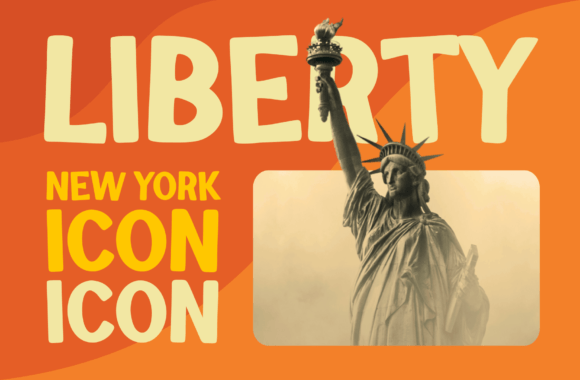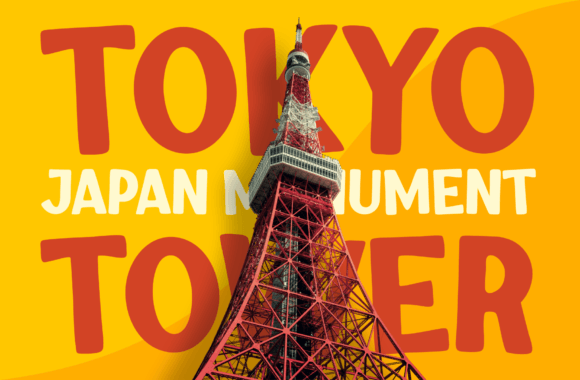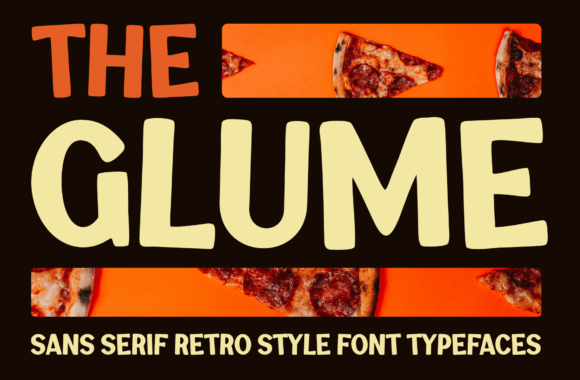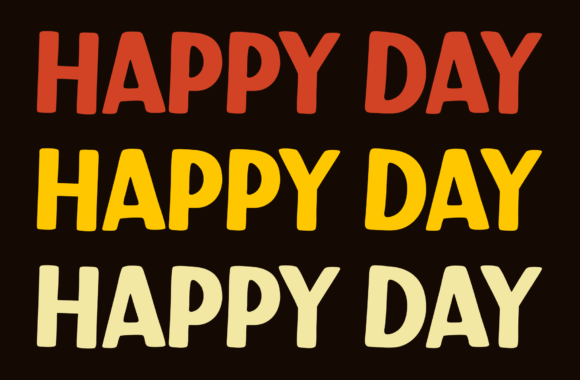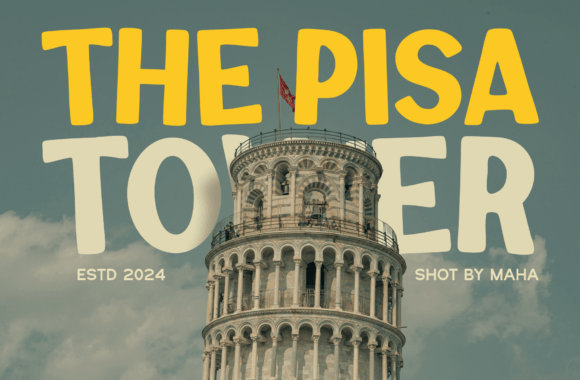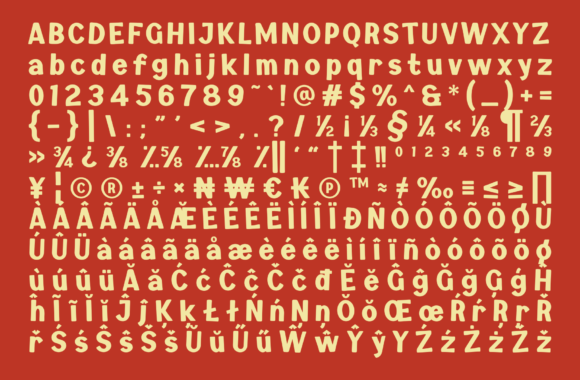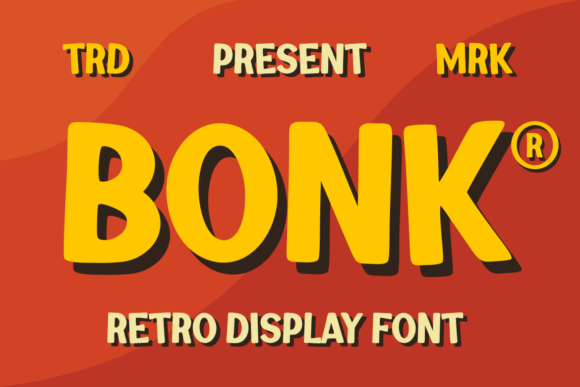
Introducing Bonk Font: The Ultimate Retro Display Font for Playful Designs
Are you tired of using the same old fonts in your designs? Look no further! We’re excited to introduce Bonk, a brand-new retro display font that’s sure to bring a burst of joy and cheerfulness to your projects. With its playful, handwritten style reminiscent of comics and cartoons, Bonk is the perfect choice for designers and crafters looking to add a touch of whimsy to their work.
What is Bonk Font?
Bonk font is a unique and eye-catching typeface that embodies the spirit of playfulness and fun. Its distinctive, hand-drawn aesthetic is characterized by bold lines, irregular shapes, and a dash of personality. This font is designed to evoke the nostalgia of childhood memories, making it an ideal choice for projects aimed at a younger audience or those looking for a fun and lighthearted feel.
Key Features of Bonk Font
- Handwritten style: Bonk font boasts a charming, handwritten look that’s perfect for adding a personal touch to your designs.
- Retro vibe: With its bold lines and playful aesthetic, Bonk font is sure to transport your audience back to a bygone era of fun and adventure.
- Comic and cartoon-inspired: This font’s inspiration from comics and cartoons makes it an excellent choice for projects that require a dash of humor and lightheartedness.
- Perfect for posters and promotional materials: Bonk font is ideal for creating eye-catching posters, invitation cards, and promotional materials that demand attention.
Use Cases for Bonk Font
Bonk font is incredibly versatile and can be used in a wide range of design projects, including:
- Poster designs: Create bold and eye-catching posters that showcase your brand’s personality.
- Invitation cards: Add a touch of whimsy to your invitation cards and make them stand out.
- Comics and cartoons: Bring your comic strips and cartoons to life with Bonk font’s playful and energetic style.
- Promotional materials: Use Bonk font to create promotional materials that appeal to a younger audience or those looking for a fun and lighthearted feel.
Why Choose Bonk Font?
With so many fonts available, why choose Bonk? Here are just a few reasons why Bonk font stands out from the crowd:
- Unique and eye-catching: Bonk font’s distinctive style is sure to grab attention and leave a lasting impression.
- Easy to read: Despite its playful aesthetic, Bonk font remains clear and easy to read, making it perfect for use in a variety of design projects.
- Highly versatile: Bonk font can be used in a wide range of design projects, from posters and promotional materials to comics and cartoons.
Bonk font is the perfect addition to any designer’s toolkit. With its playful, handwritten style and retro vibe, it’s sure to bring a burst of joy and cheerfulness to your projects. So why wait? Download Bonk font today and start creating designs that are sure to delight your audience!
In conclusion, Bonk font is a unique and exciting addition to the world of typography. Its playful, handwritten style and retro aesthetic make it the perfect choice for designers and crafters looking to add a touch of whimsy to their work. Whether you’re creating posters, promotional materials, or comics, Bonk font is sure to bring a smile to your audience’s faces. So why not give it a try and see the difference it can make in your designs?